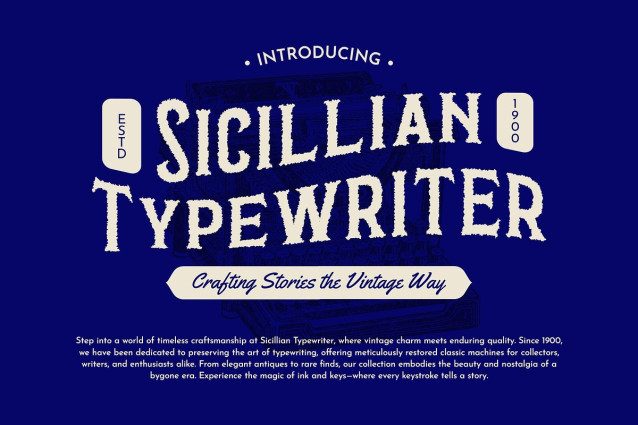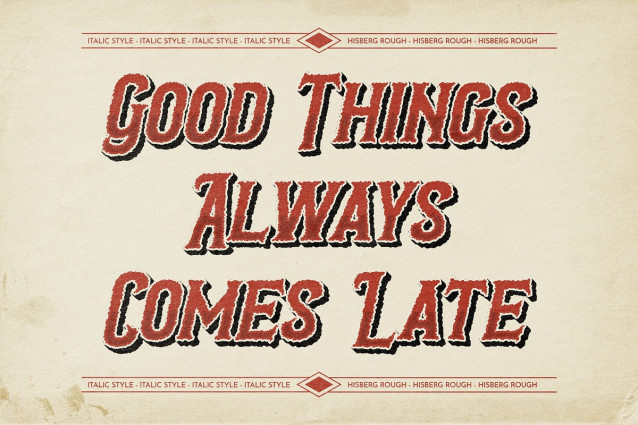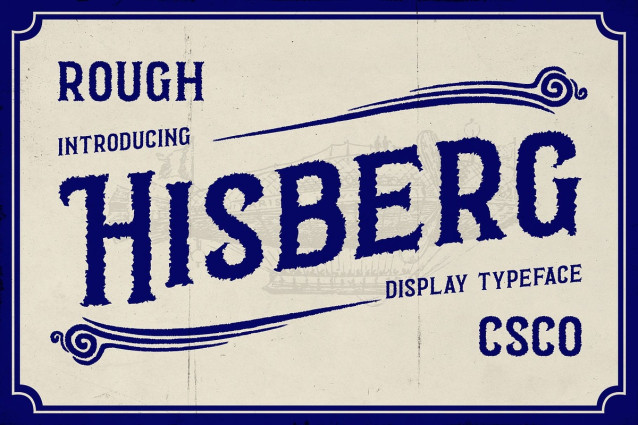
Hisberg Rough Font
Hisberg Rough Font is a serif display font that draws from the timeless elegance of vintage typography, featuring refined letterforms inspired by the rich cultural aesthetics of the past. Its historical character and sturdy structure make it a standout choice for designs that aim to convey authenticity, heritage, and strength.
Rough Texture for a Bold, Worn Finish What sets Hisberg Rough apart is its distinctive rough texture, giving it a weathered and tactile feel. The uneven edges and textured strokes replicate the charm of letterpress prints and aged signage, enhancing the font’s bold visual personality and bringing depth to your design.
A Font That Speaks of Legacy Each letter in Hisberg Rough echoes a story from the past—perfect for branding, packaging, editorial layouts, or logos that want to tap into nostalgia and lasting impact. It evokes a sense of trust, tradition, and craftsmanship, making it ideal for artisan products, vintage-inspired fashion, or historical themes.
Perfect for Timeless but Striking Designs If you’re working on a project that needs to feel classic yet bold, rustic yet elegant, Hisberg Rough delivers. It’s the font of choice for designers seeking to combine retro aesthetics with a powerful, expressive edge, suitable for book covers, labels, cafe menus, and more.